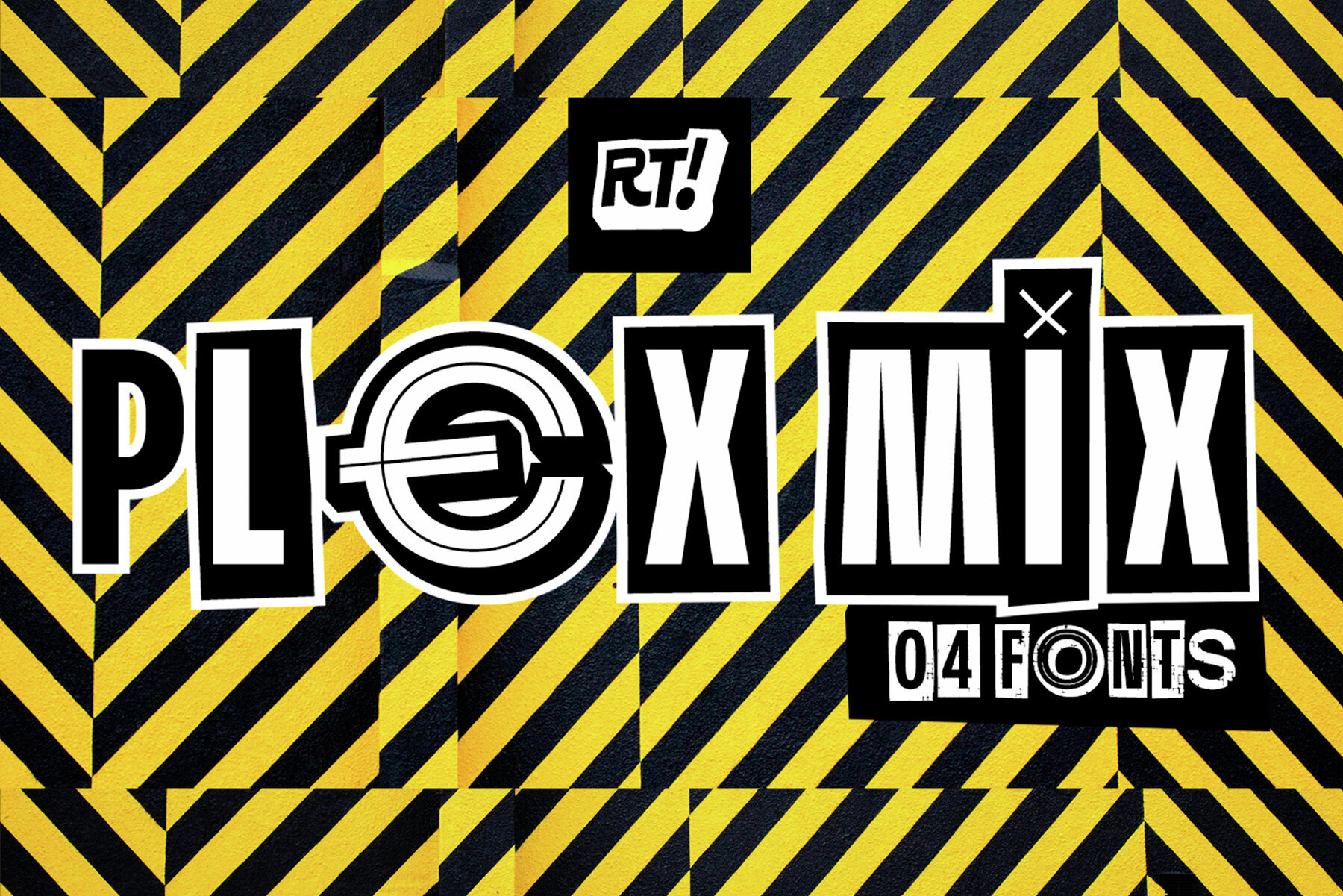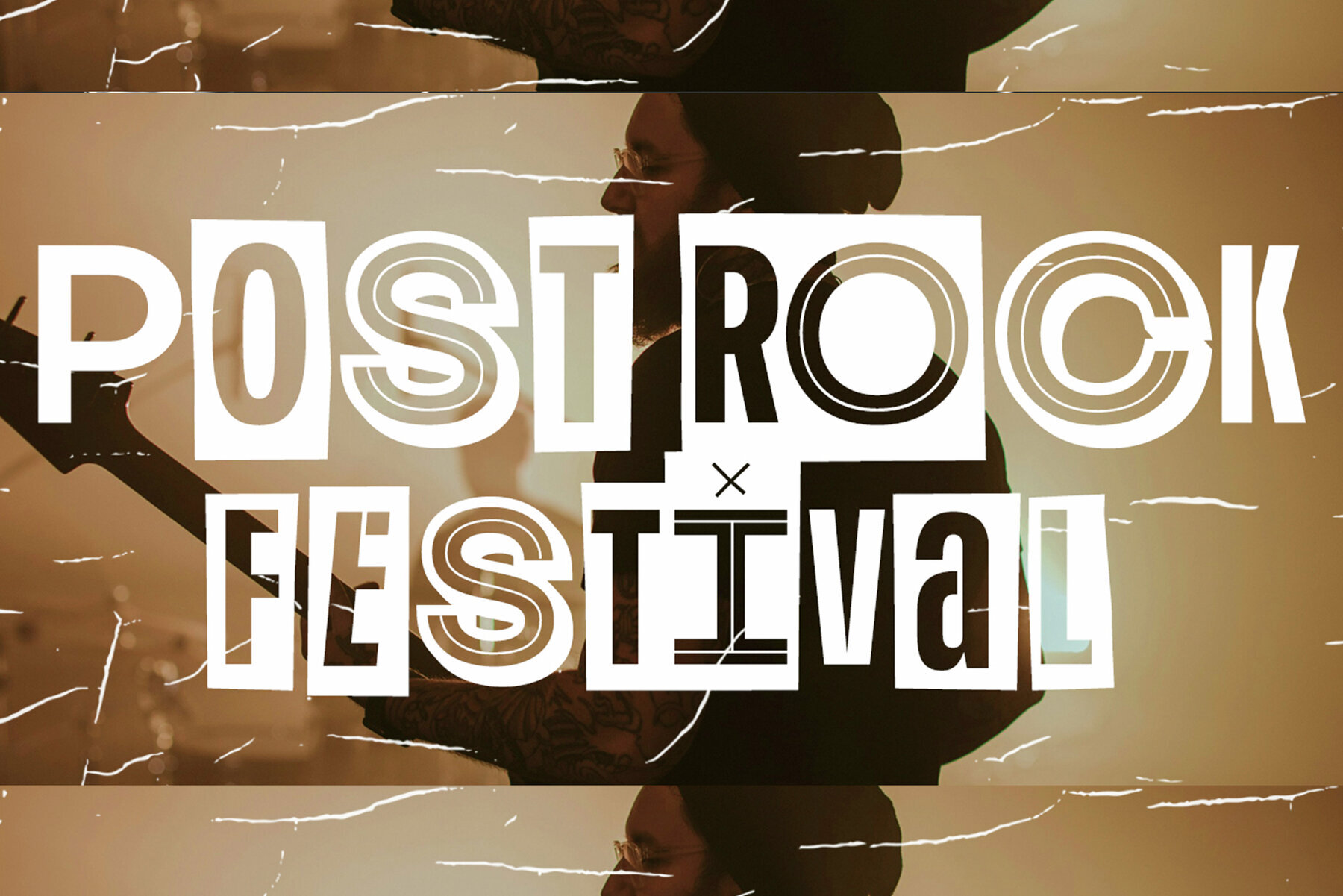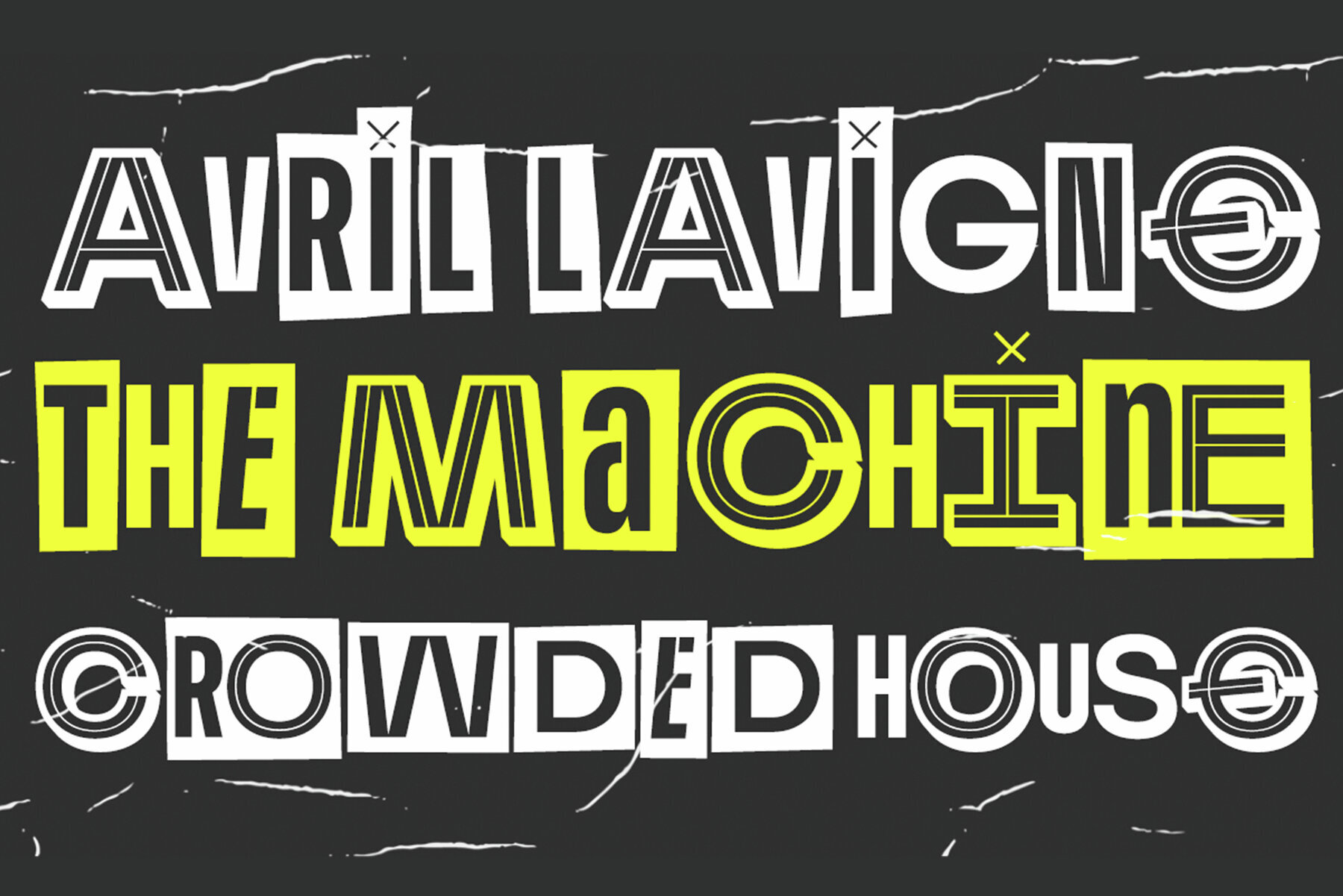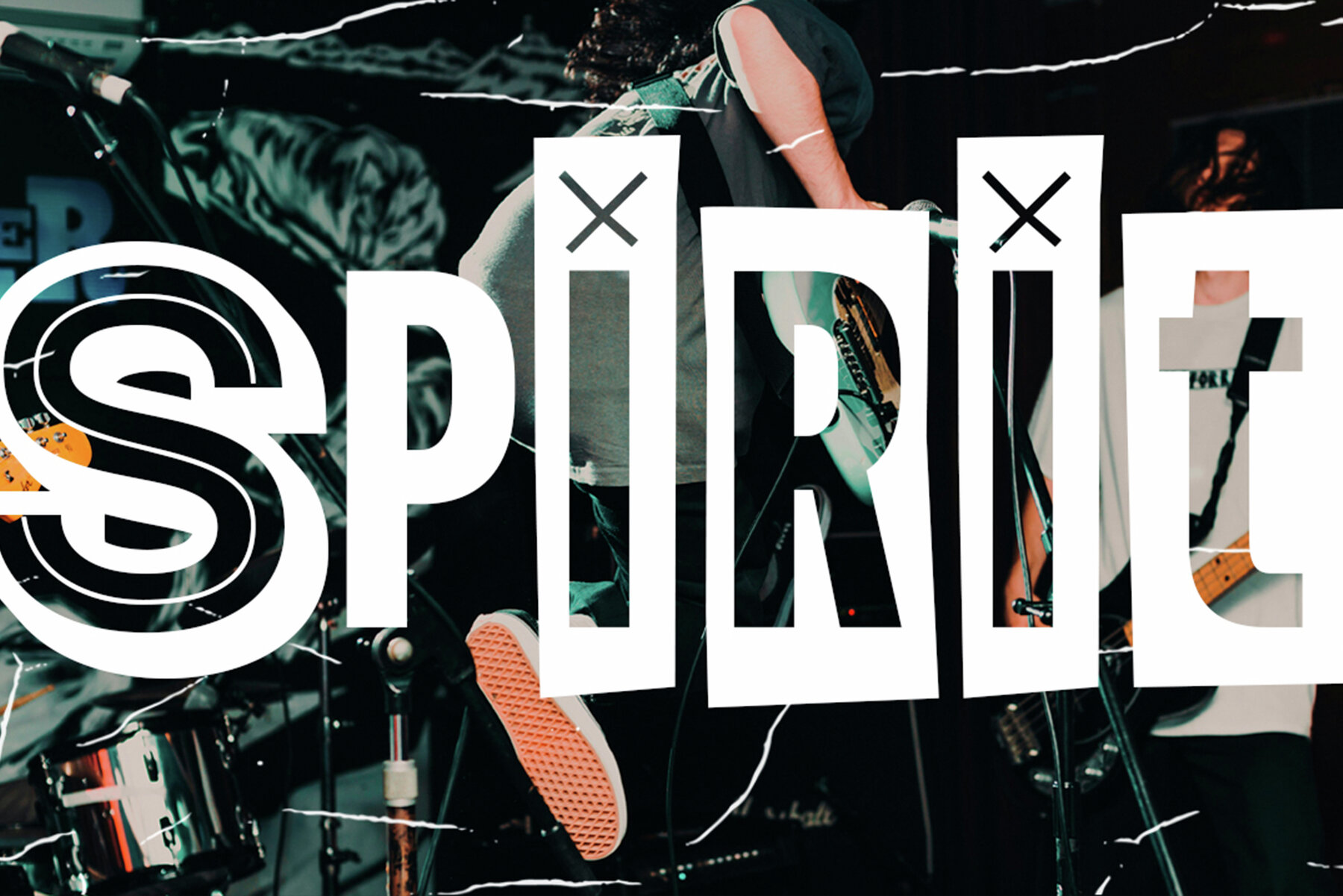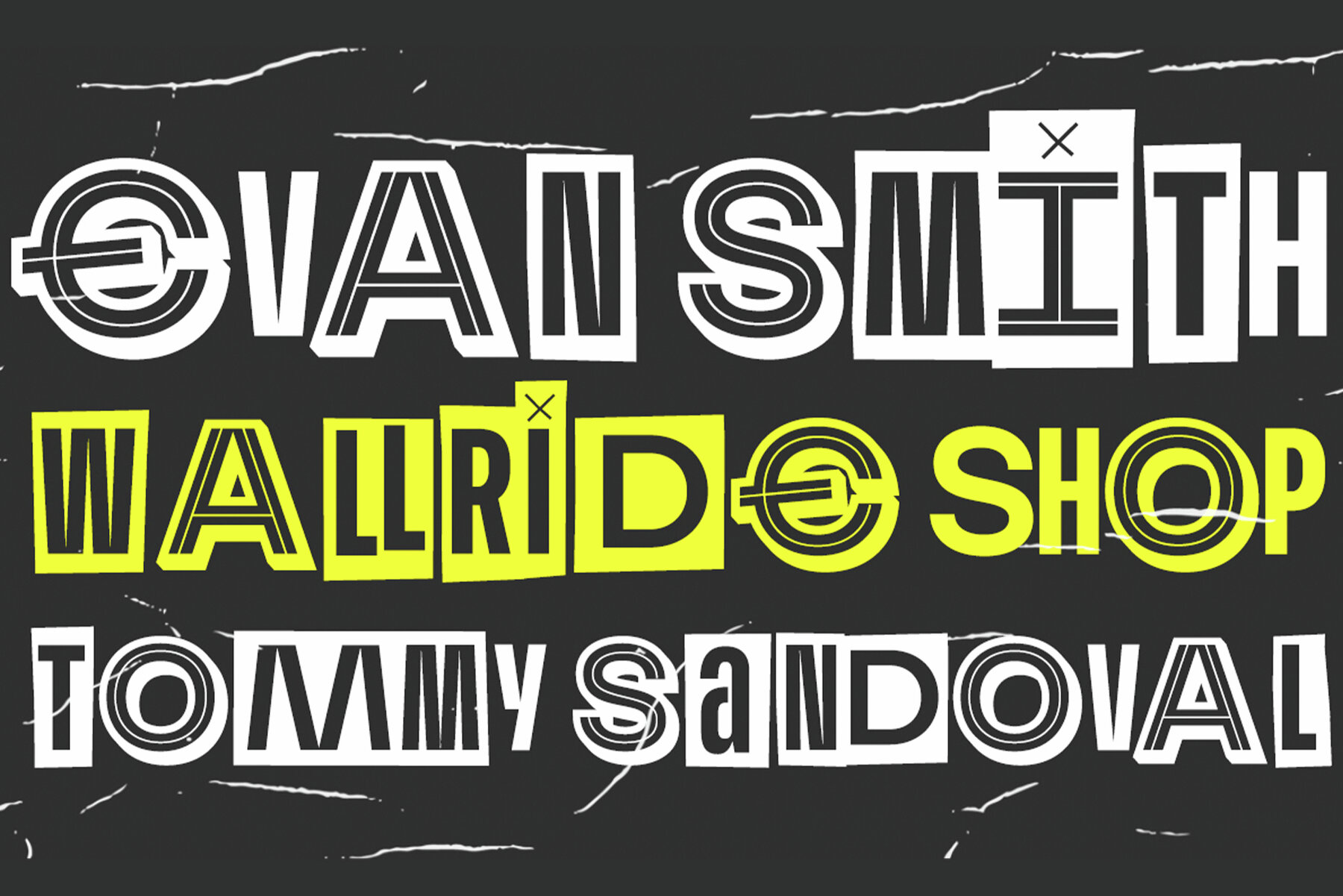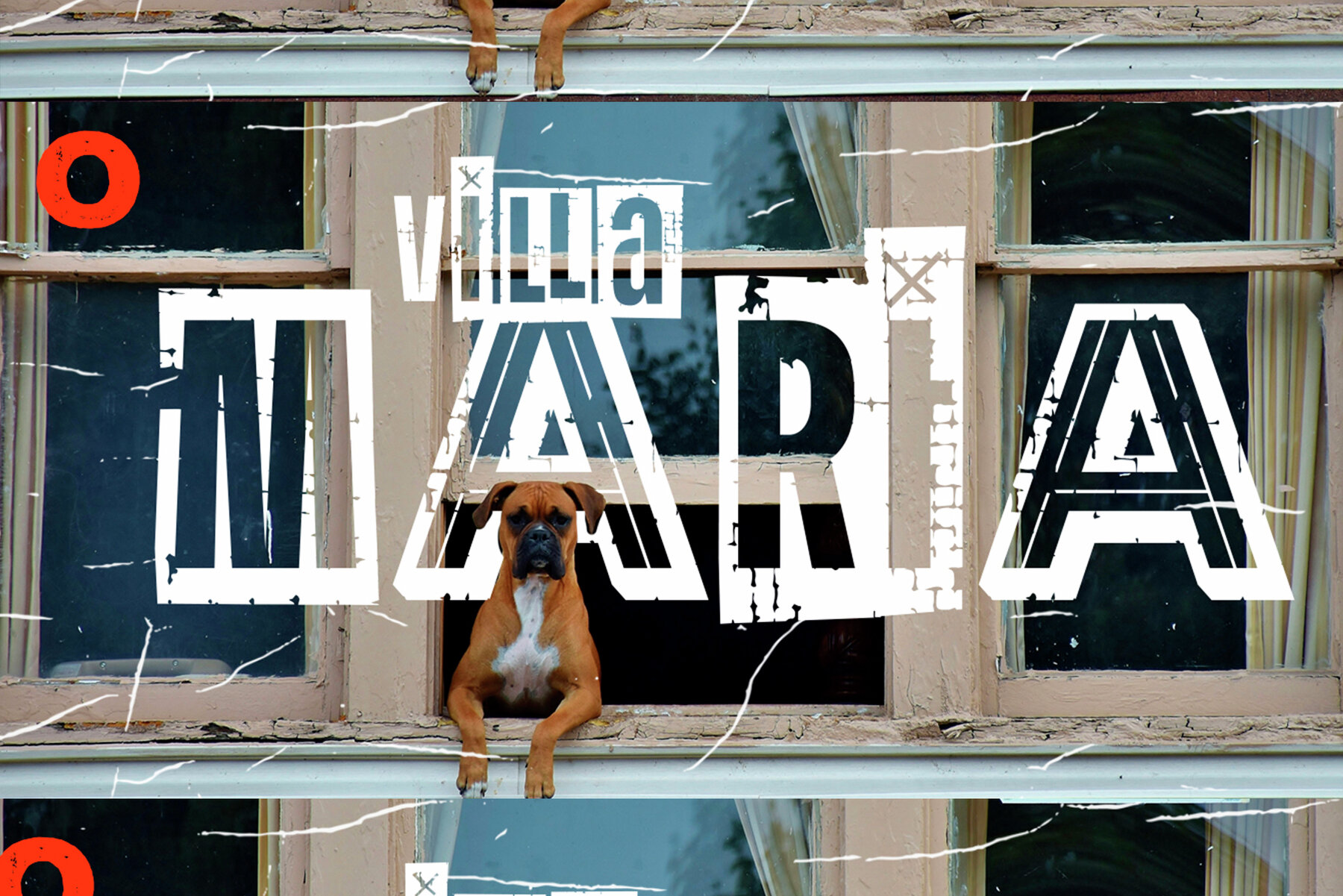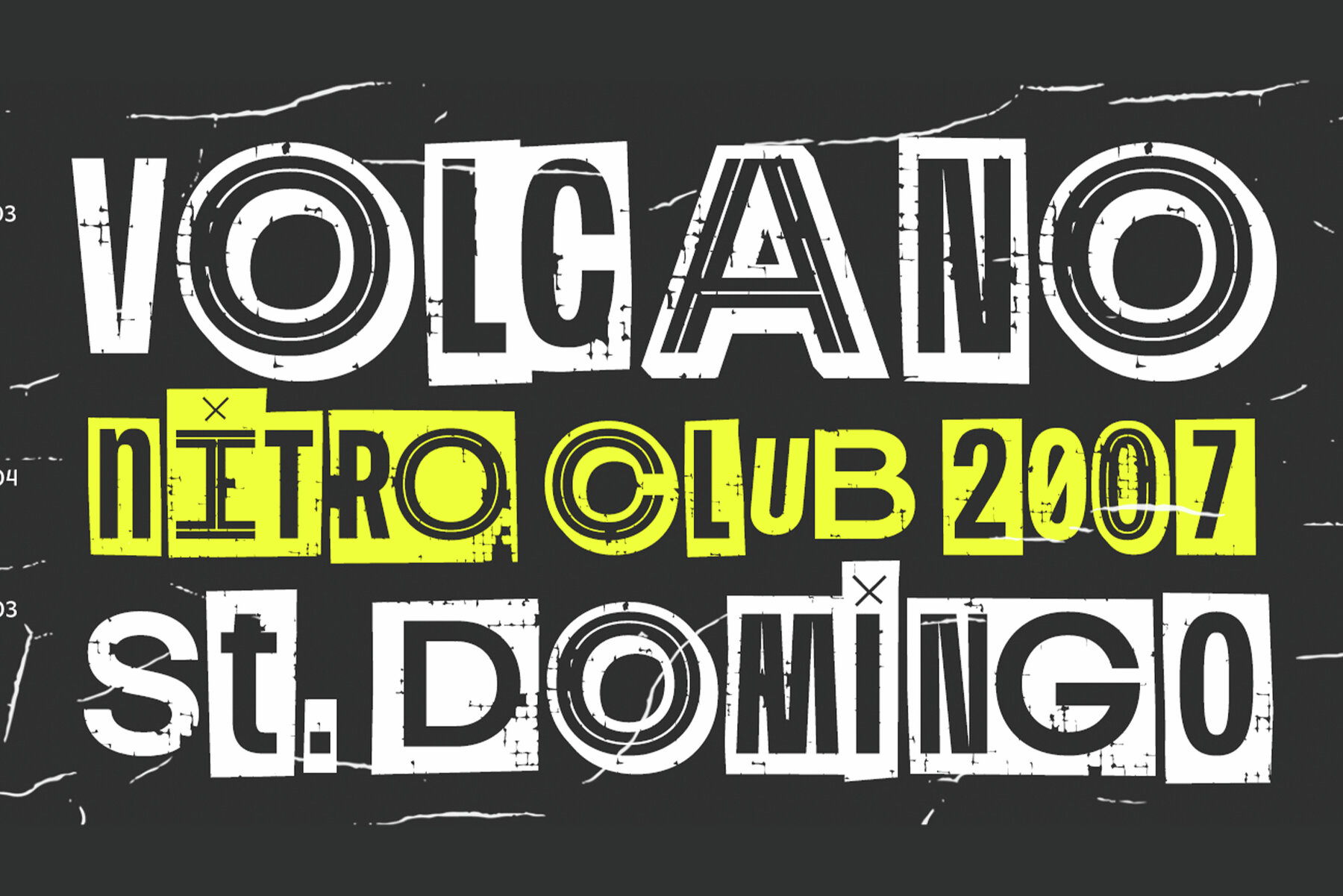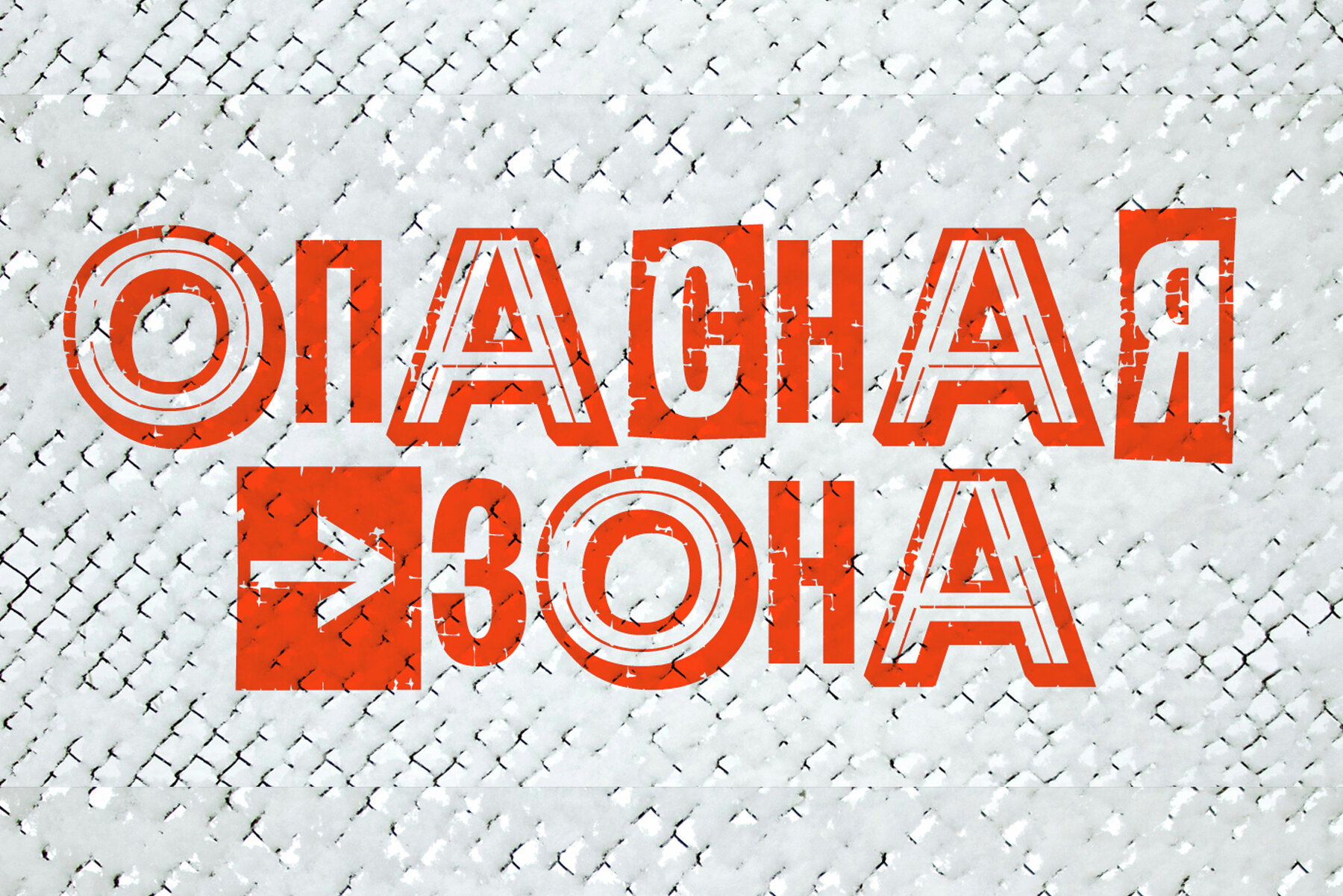
Plex Mix Font
Plex Mix is an external version of Plex Beta, featuring a diverse collection of four fonts. This typeface includes both clean and textured forms, such as the "Rough" variety, making it adaptable for various design needs across multiple languages.Plex Mix: Versatile Typeface for Multilingual Projects
Whether you're working on elaborate international projects or need a versatile font for creative tasks, Plex Mix provides the essential tools to convey your message with clarity and style.